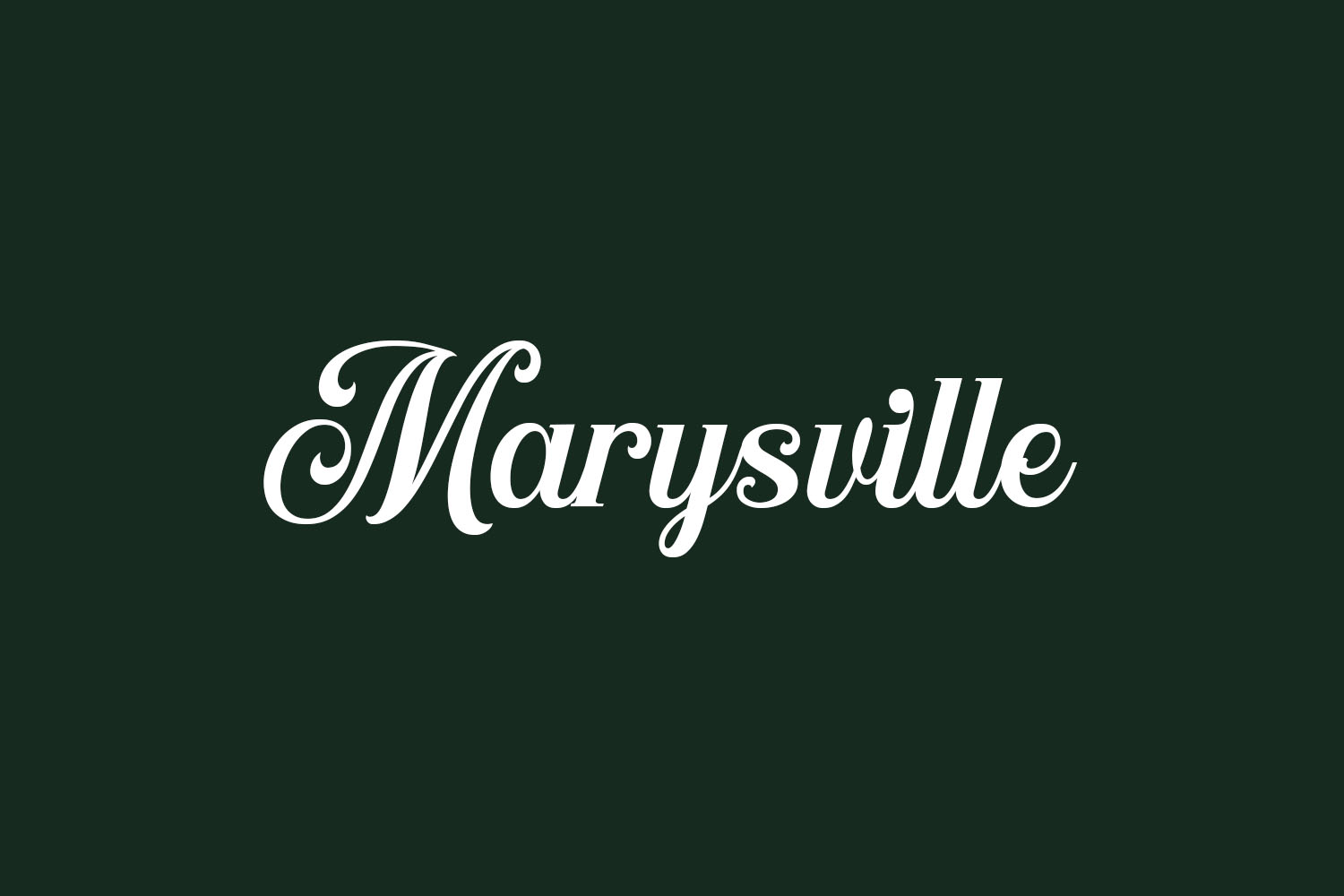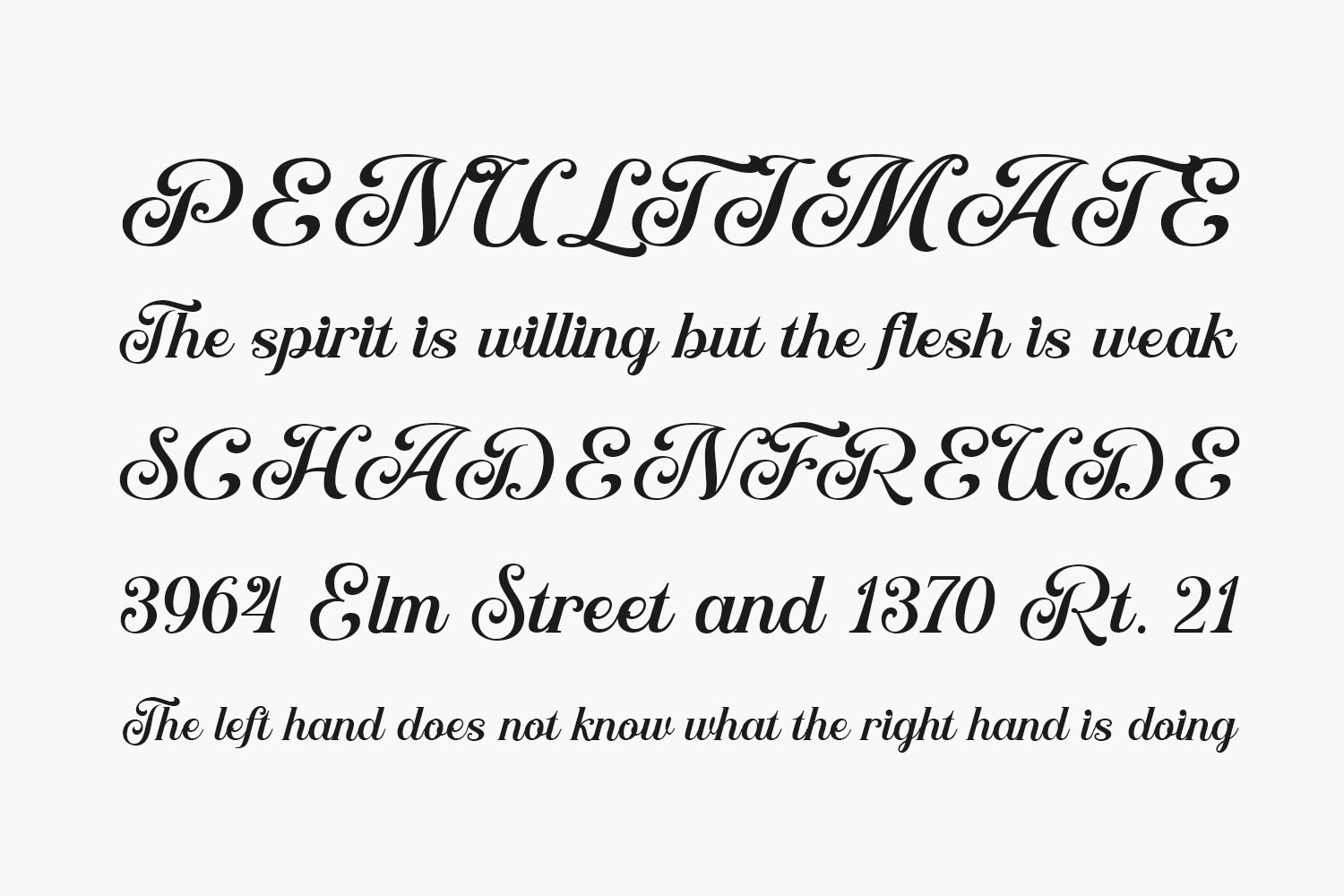
Step into the nostalgic vibe of Marysville Free Font, a bold retro script that effortlessly captures the essence of the 60s. Tailored for timeless appeal, this font is an ideal choice for logos and various formal contexts including invitations, labels, magazines, books, greeting/wedding cards, packaging, fashion, make-up, stationery, novels, or any advertising endeavor. Embrace the vintage charm and infuse your designs with a touch of the past. Marysville Free Font is free for personal use only. Please purchase the full version for commercial use.